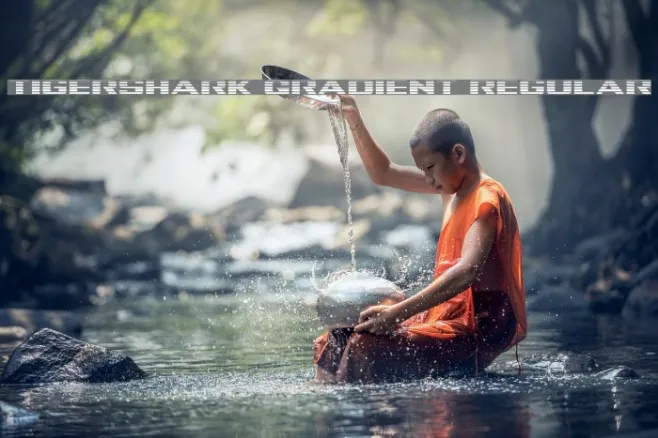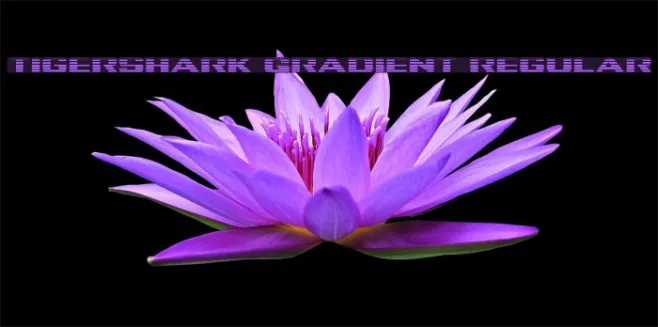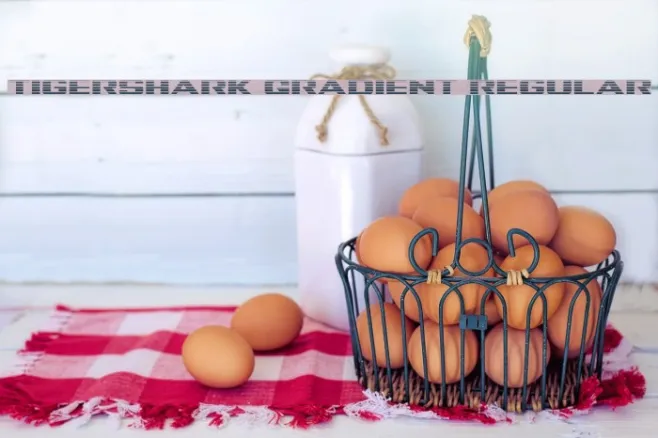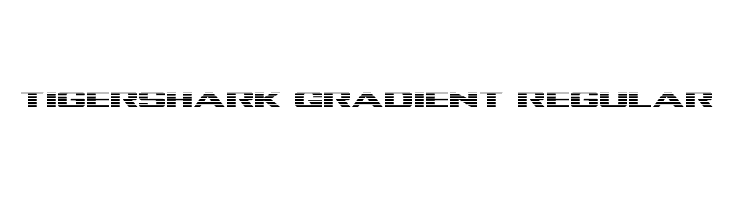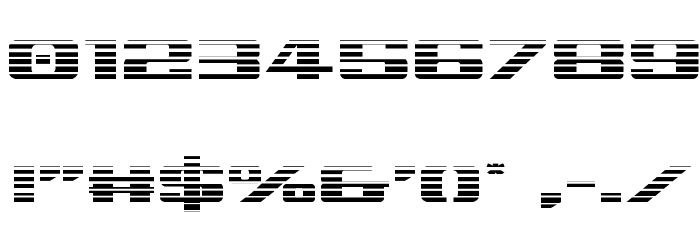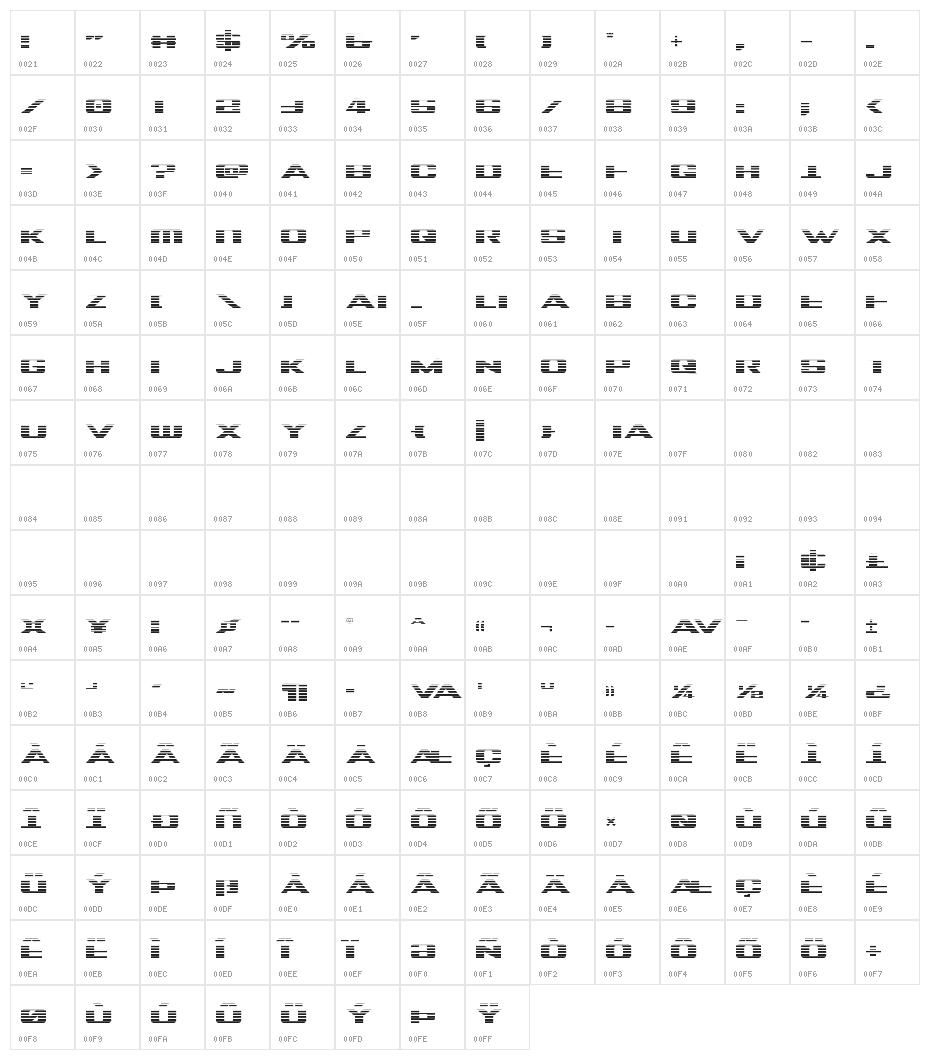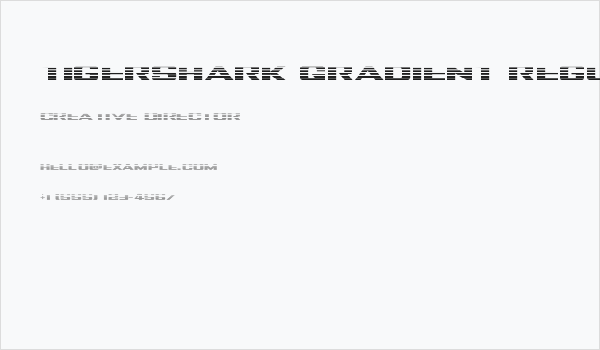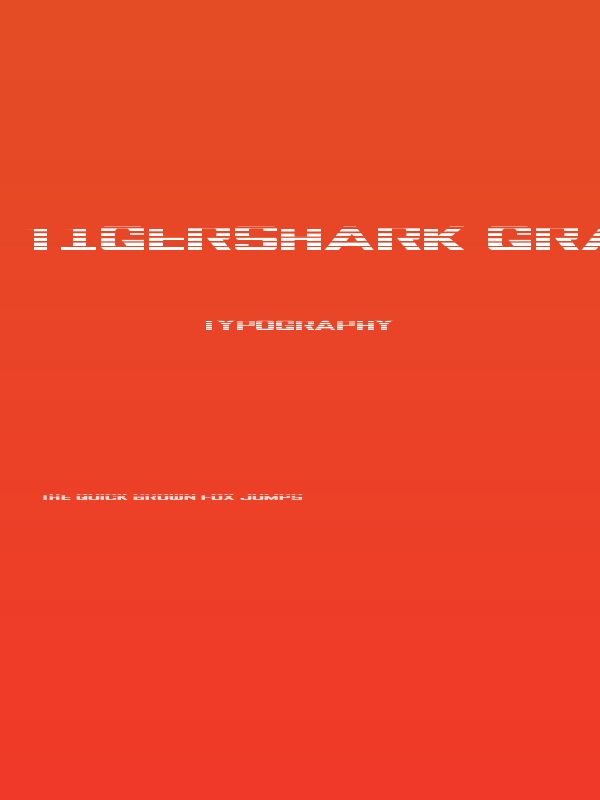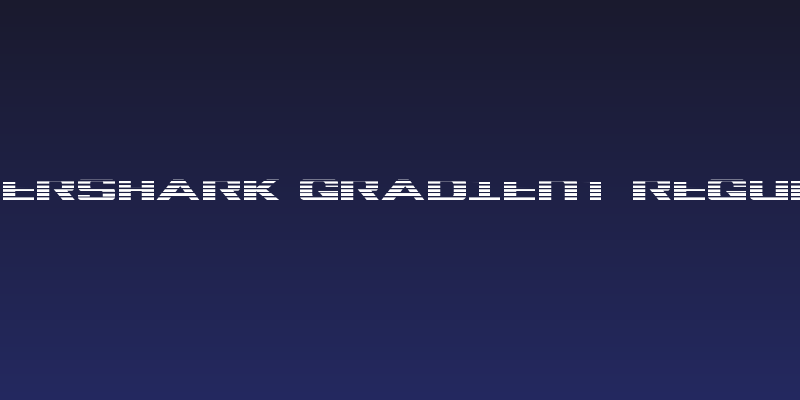
Tigershark Gradient Regular Font
Tigershark Gradient Regular Description
This font features a bold, modern design with a unique striped pattern running horizontally across each character. The uppercase letters are distinct and geometric, giving a futuristic and dynamic appearance. The numerals and special characters maintain this striped motif, ensuring consistency throughout the typeface. The font's design is eye-catching and suitable for projects that require a strong visual impact. Its structured form and high contrast make it ideal for attention-grabbing headlines or logos.
A bold, modern font with a unique horizontal striped pattern from Uncategorized fonts.
- Proposed Projects: Ideal for branding, advertising, and poster design where a modern and striking appearance is desired.